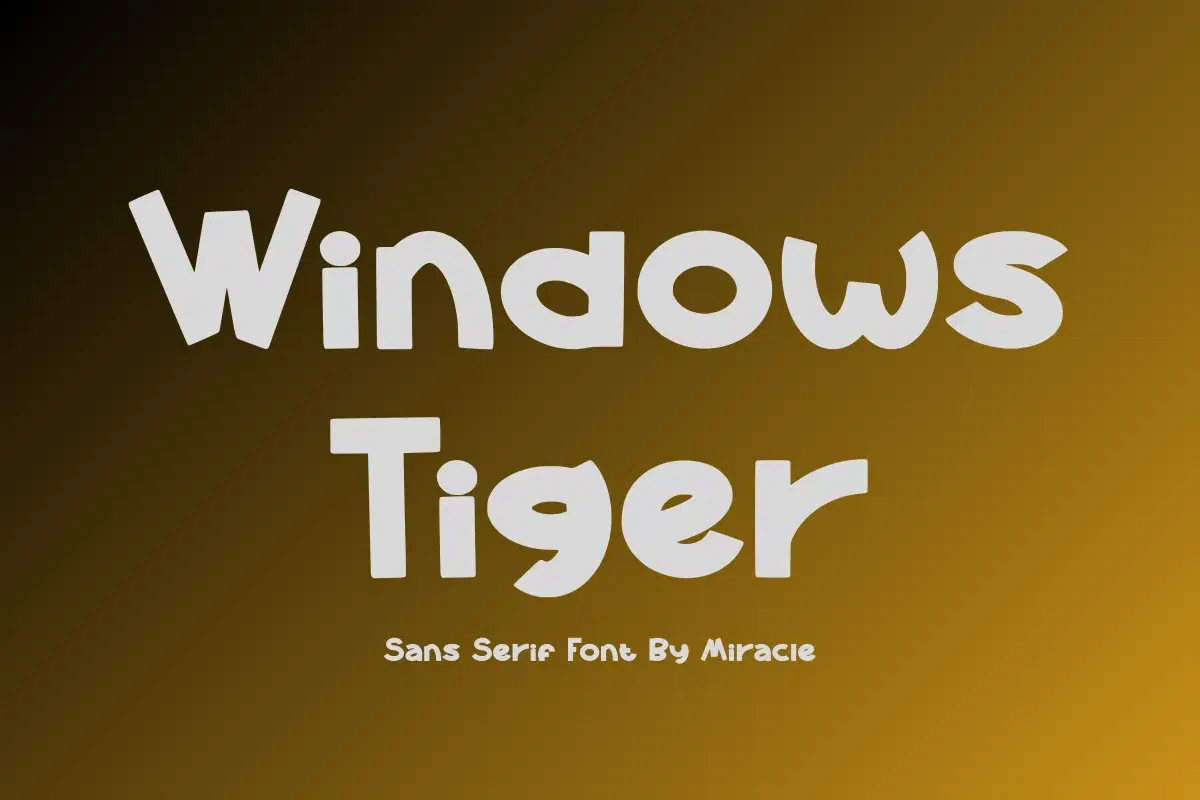
Windows Tiger - Handwritten Font
Command attention with Windows Tiger, a powerful and expressive sans serif font by Miracle. Featuring heavy, rounded letterforms and a high-contrast silhouette, this font is designed to bring a bold, modern energy to your creative layouts. It strikes the perfect balance between professional strength and approachable charm.
Windows Tiger is crafted for maximum impact, making it an excellent choice for display use where legibility and personality are key. Its thick strokes and unique curves ensure that your message stands out clearly, whether it's against a dark gradient or a vibrant background.